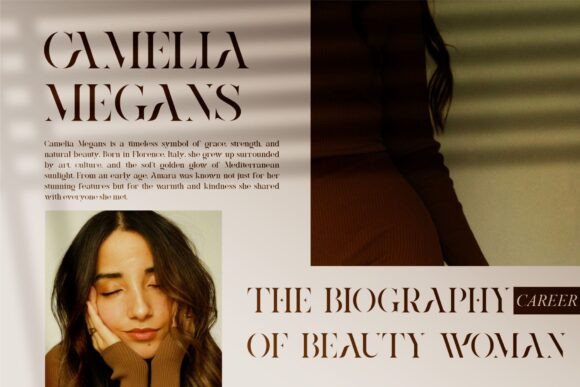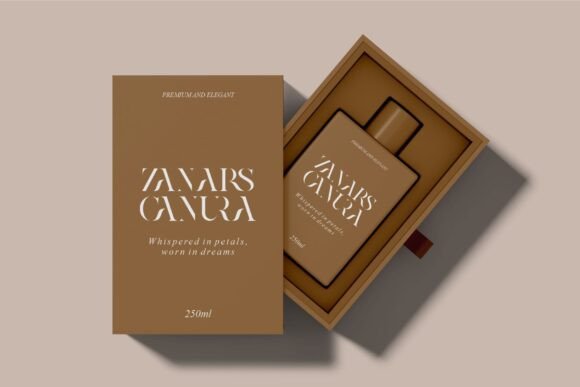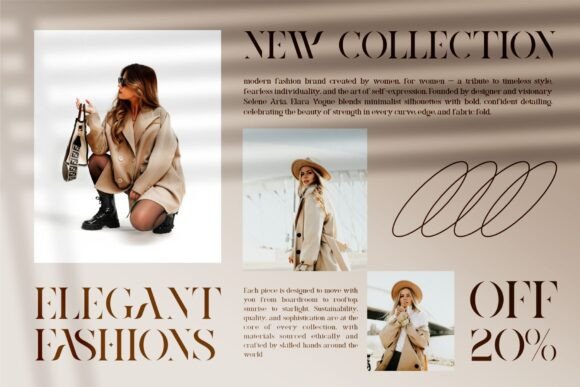
Introduction to Kasero Font
Kasero Stencil Serif is a modern and classy font type for all branding and logo designs.
This modern and classy Serif font has a beautiful character This font is suitable for invitation card designs, cool logos, movie titles, movie names, business cards, book titles, brand names, and various other designs.
Kasero Font offers exceptional quality and versatility, making it a valuable addition to your design toolkit. Whether you’re creating for personal projects or commercial use, Kasero Font delivers professional results.